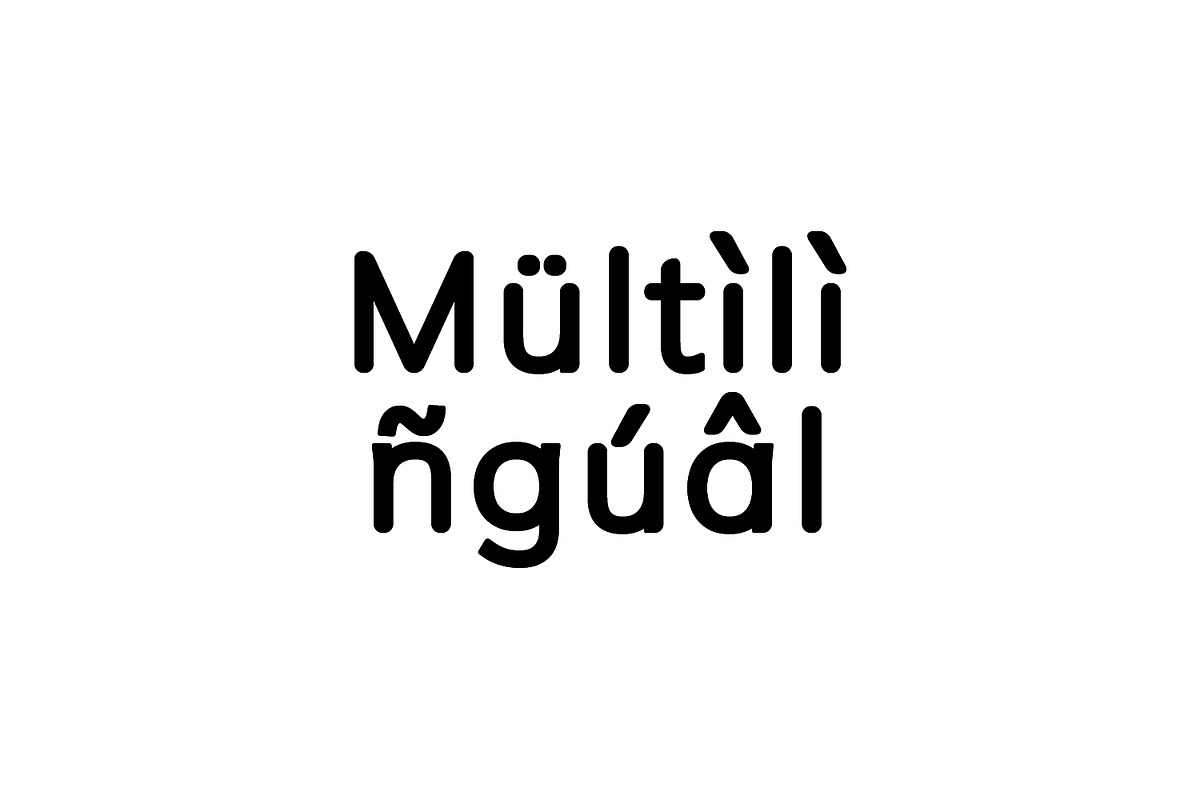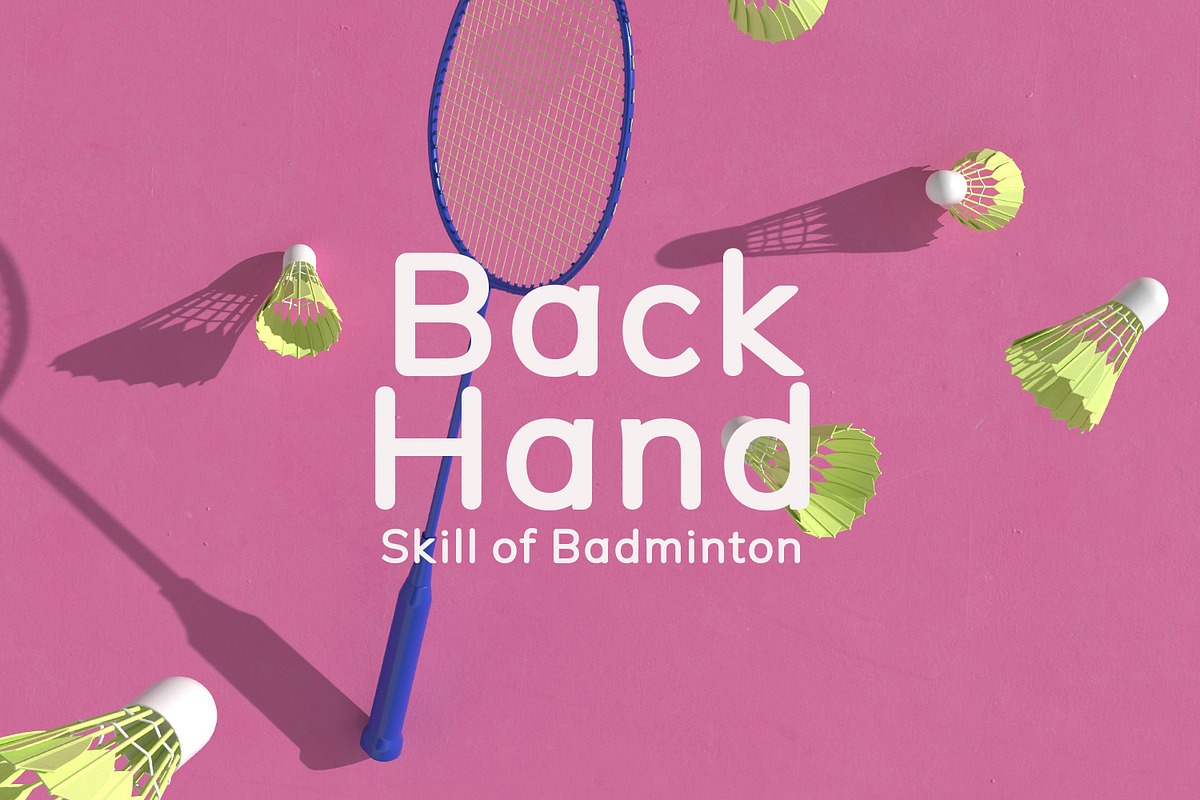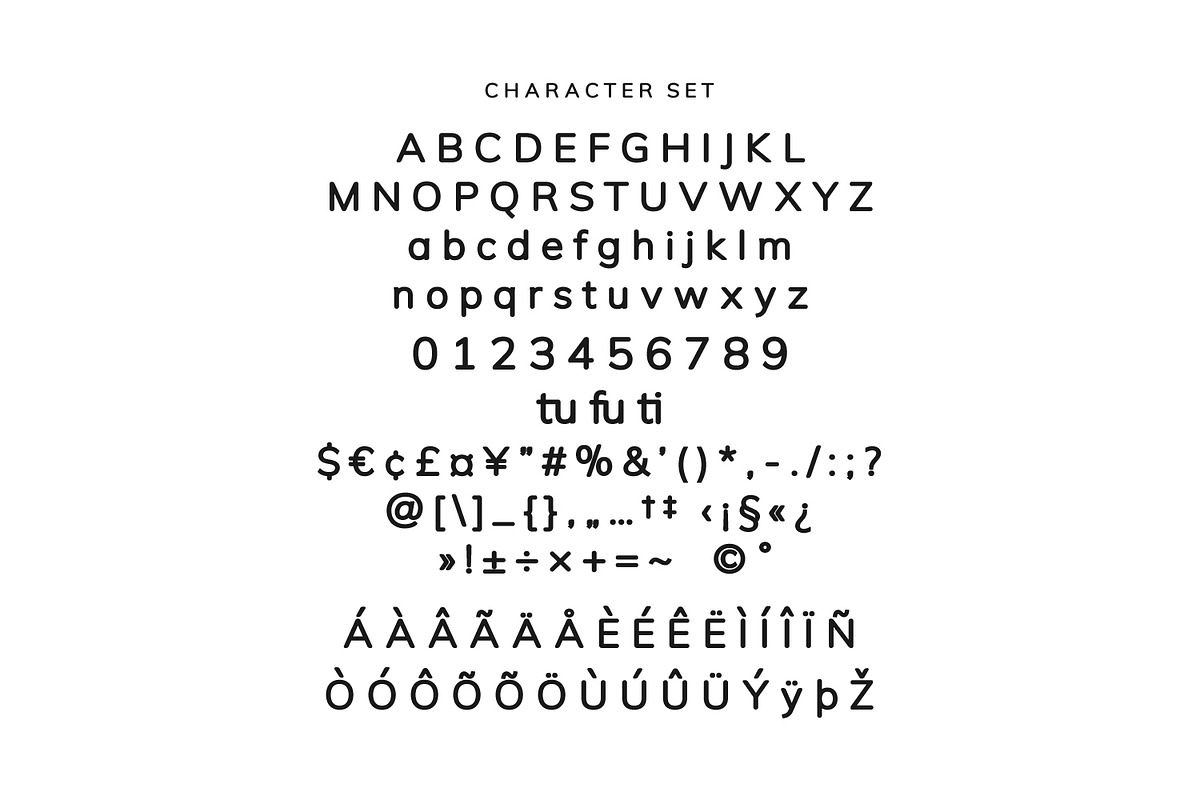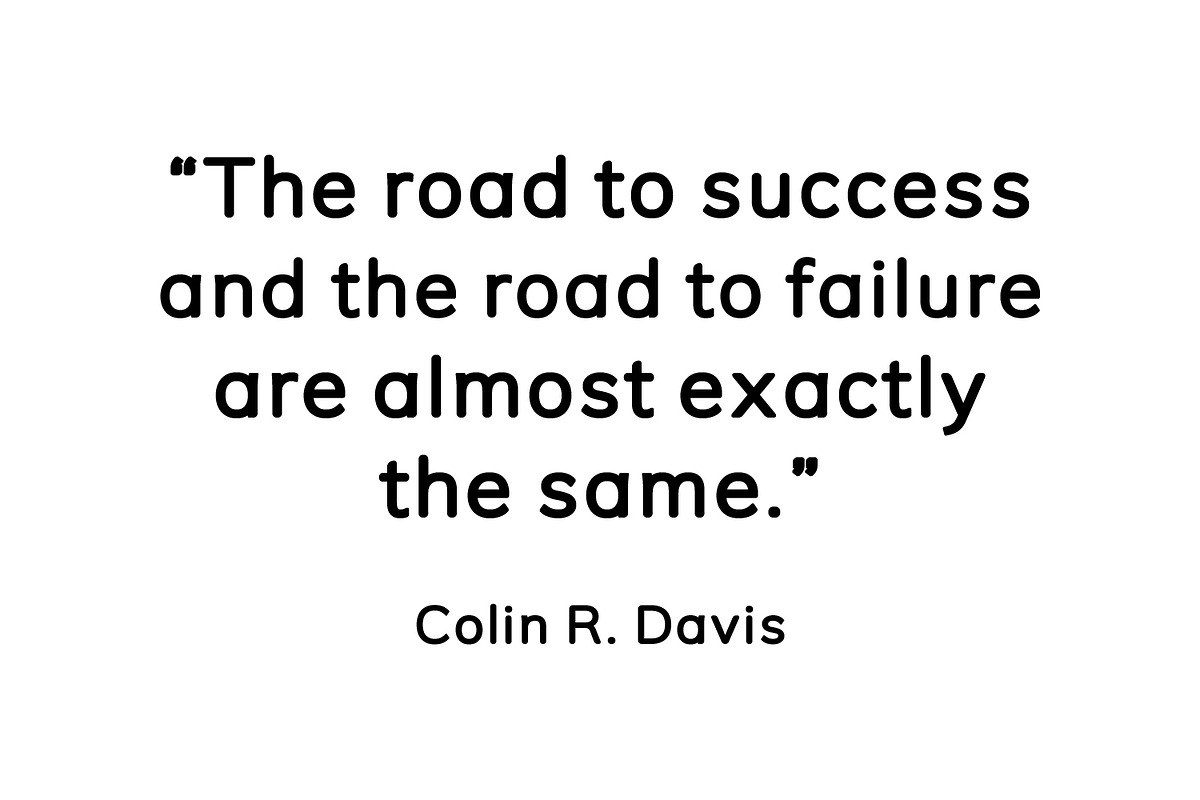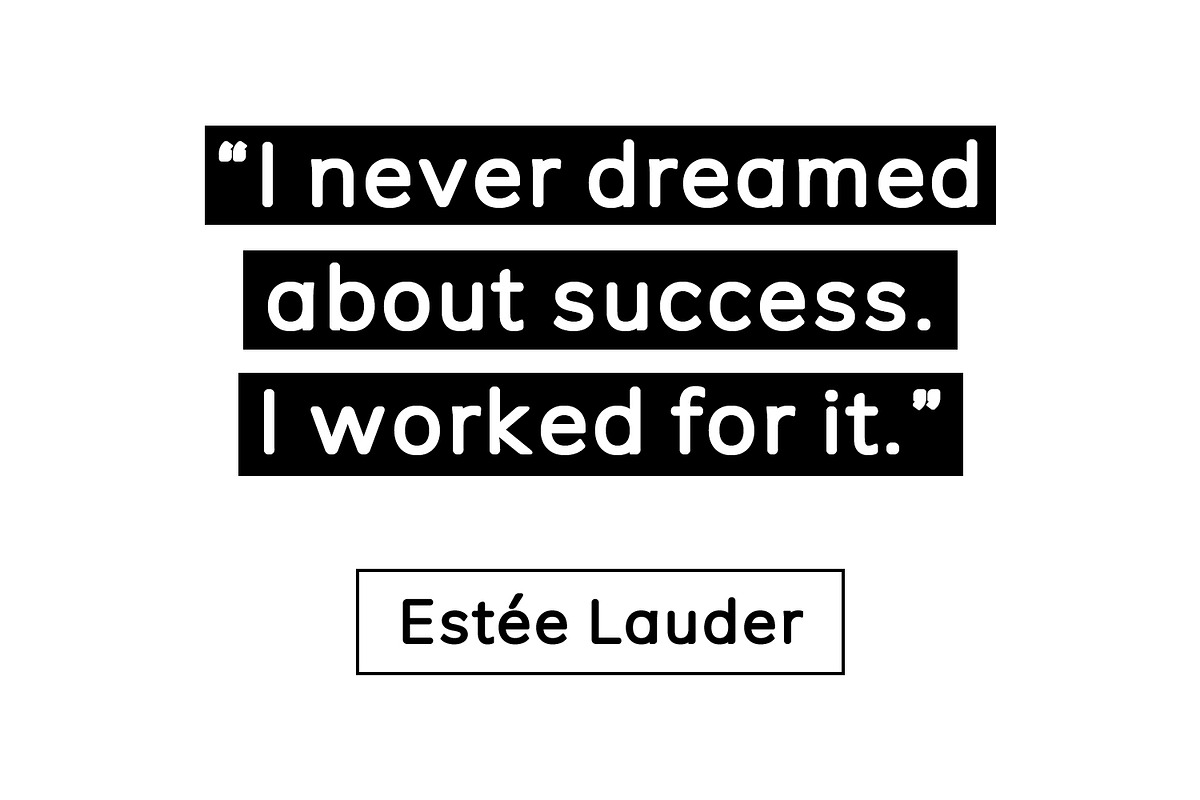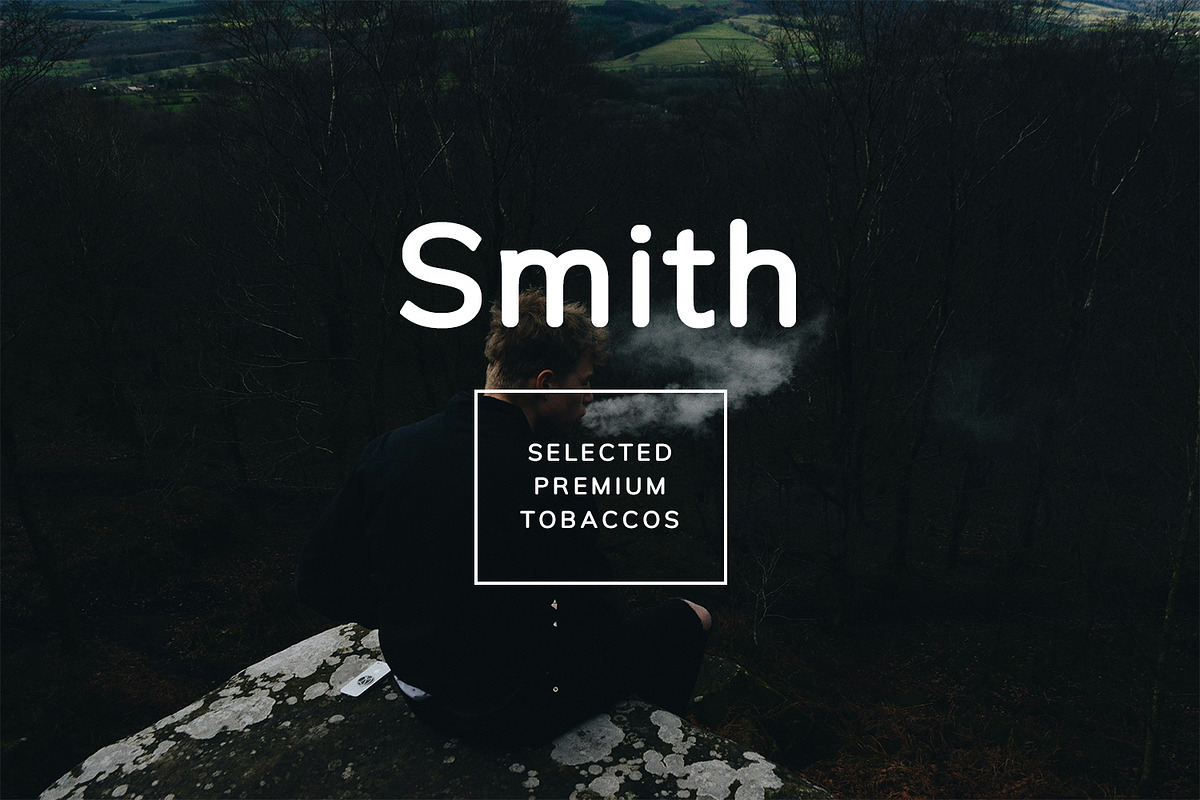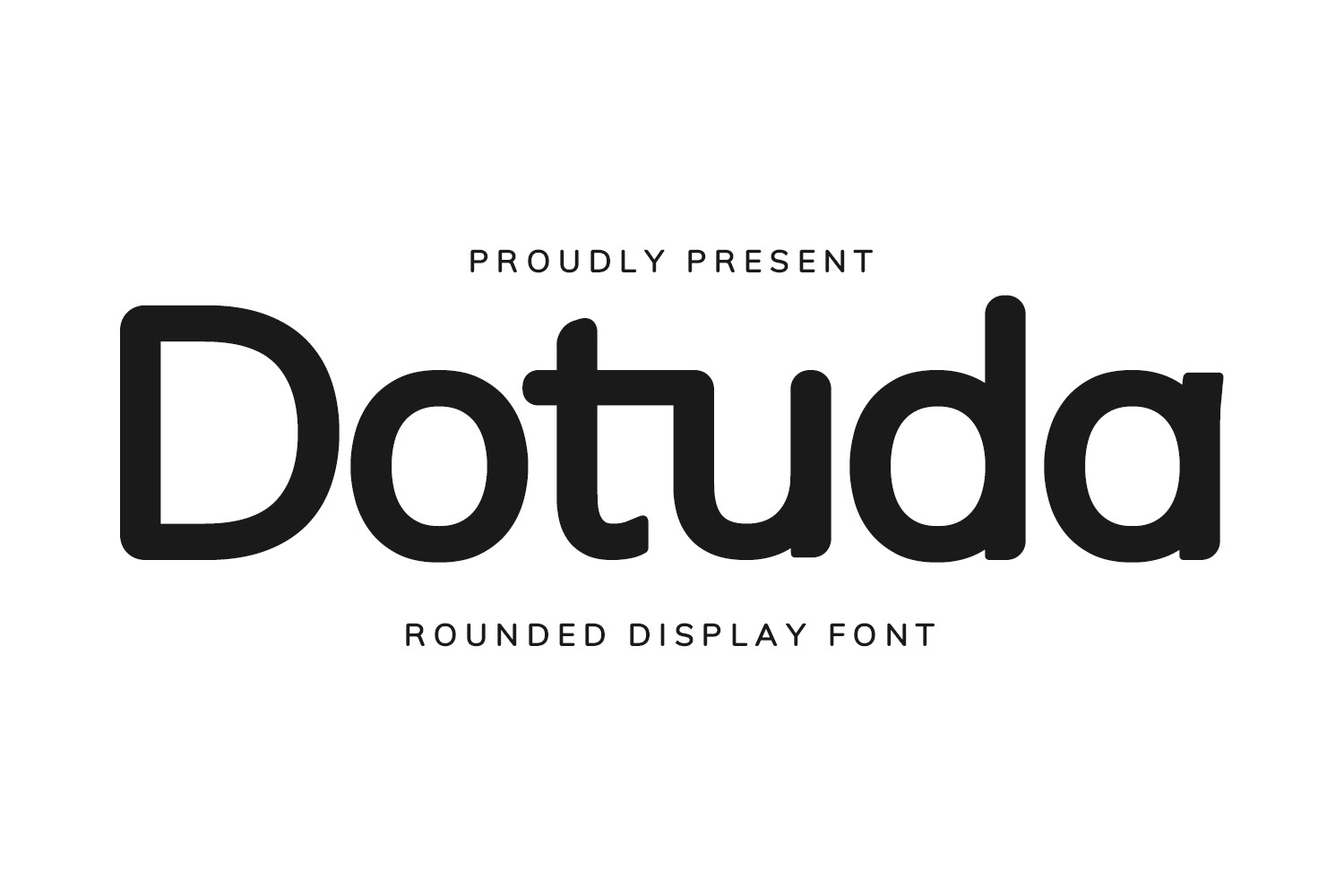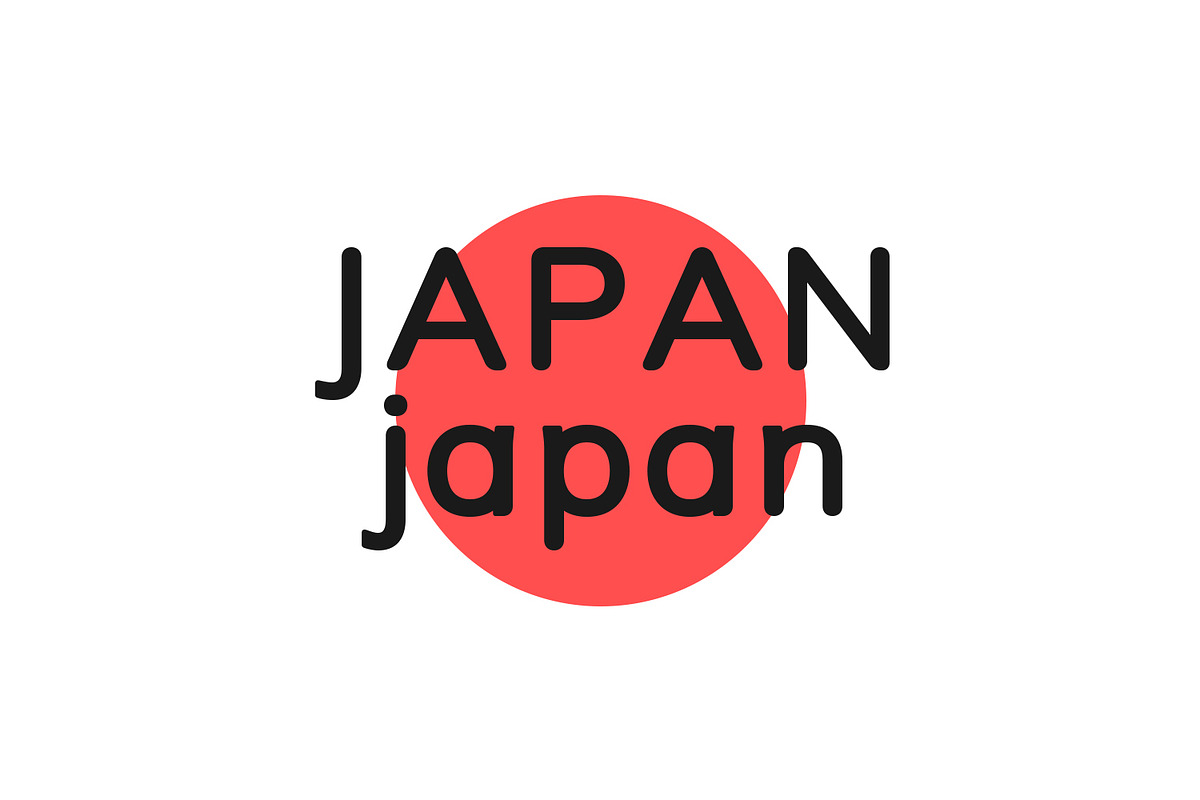
Dotuda Rounded Display Font
Dotuda is a vintage sans serif with rounded font. Dotuda is perfectly suited to branding, logos, magazines, films, website, headlines, titles, captions, games, apps, posters, t-shirts and more.